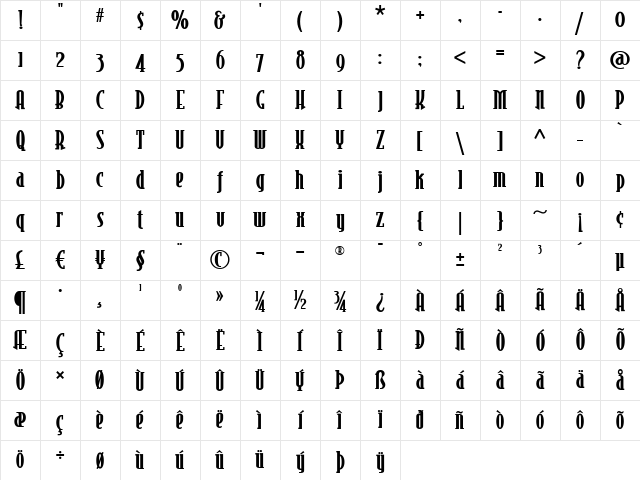
Complete Risky Business Old style NF Regular glyph index. Displaying only characters natively supported by Risky Business Old style NF Regular font.
Risky Business Old style NF is a composed and adaptable typeface that performs quietly and consistently across a wide range of design contexts.